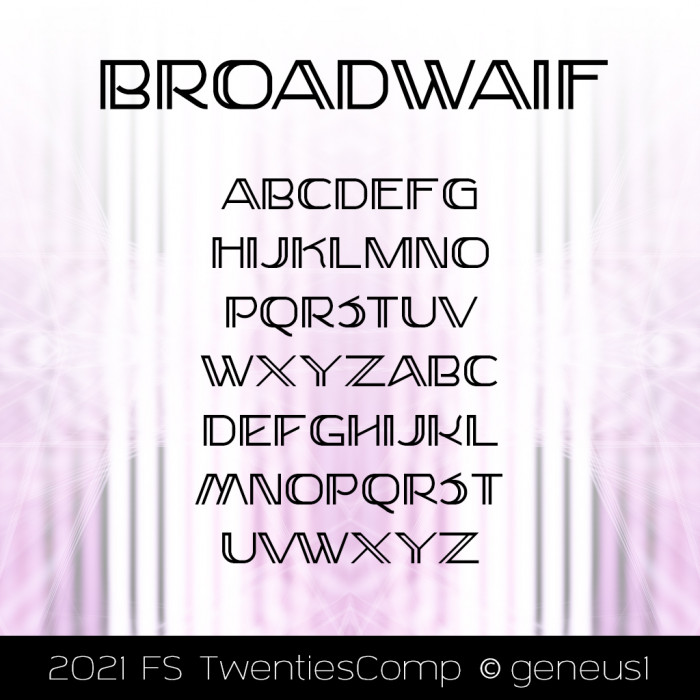
• Broadwaif. Because it looks similar to the Broadway 1920s font, and because its a waif - being neglected, abandoned, and uncared for. Now I'm sad.
Very nice design! X/Y/Z look a bit too wide though.
Very effective biline, I like how most glyphs open up at the base.